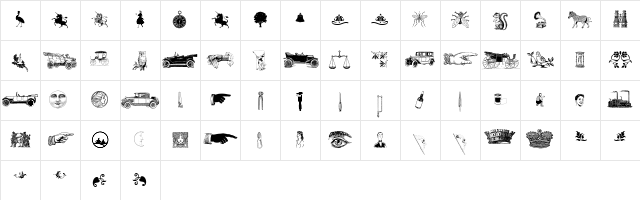
Complete Monocracy Cuts and Clips Regular glyph index. Displaying only characters natively supported by Monocracy Cuts and Clips Regular font.
Monocracy Cuts and Clips uses fixed-width spacing throughout, giving it the structured, systematic character associated with coding environments and technical documentation.
Pro Tip: Use Monocracy Cuts and Clips with slightly increased line-height for extended reading - fixed-width spacing can feel dense in longer passages without extra breathing room.